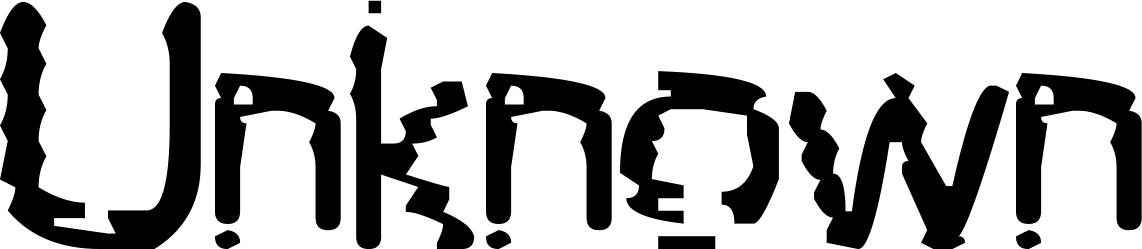
Unknown Font
Designed bySinna
Distorted fonts usually bring a scary and messy sense to your writings and Unknown is no exception. It contains a set of alphabetical letters and a numeric set with a wavy and distorted character design. You can use them for scary movies, books, plays, event flyers and banners, gaming titles, and informal headlines.